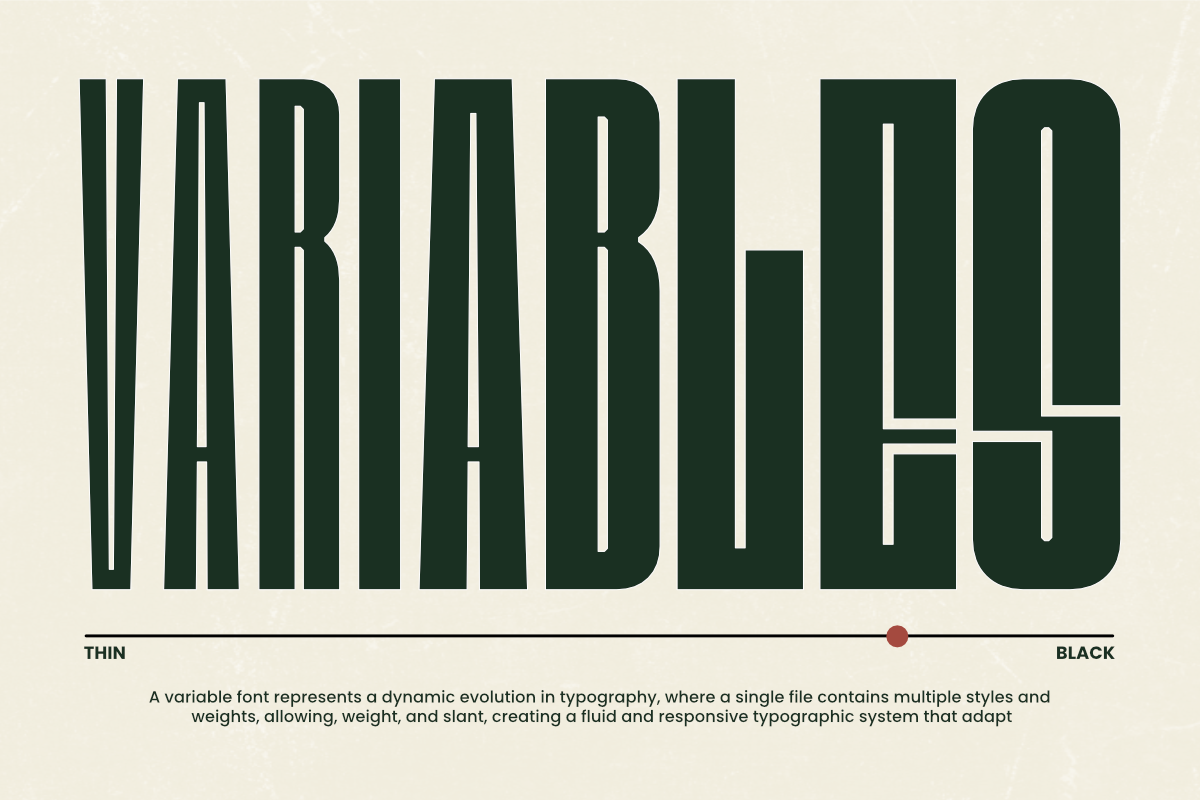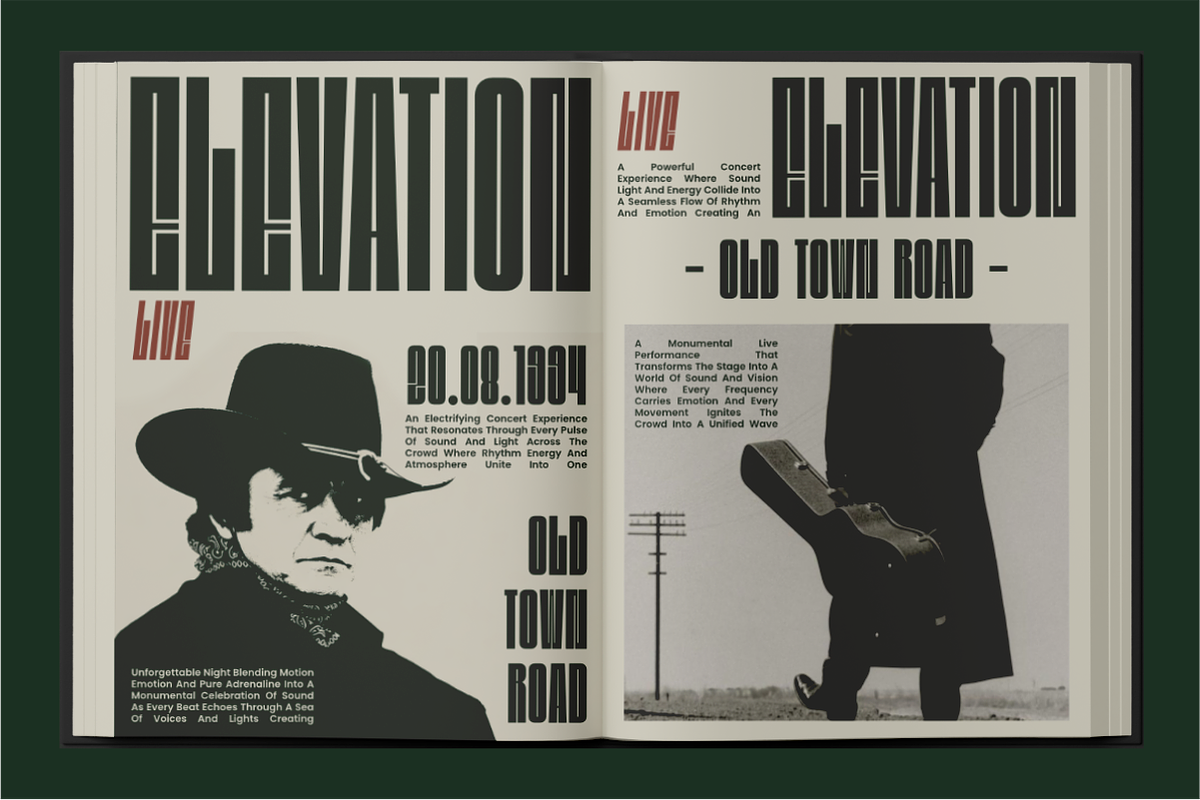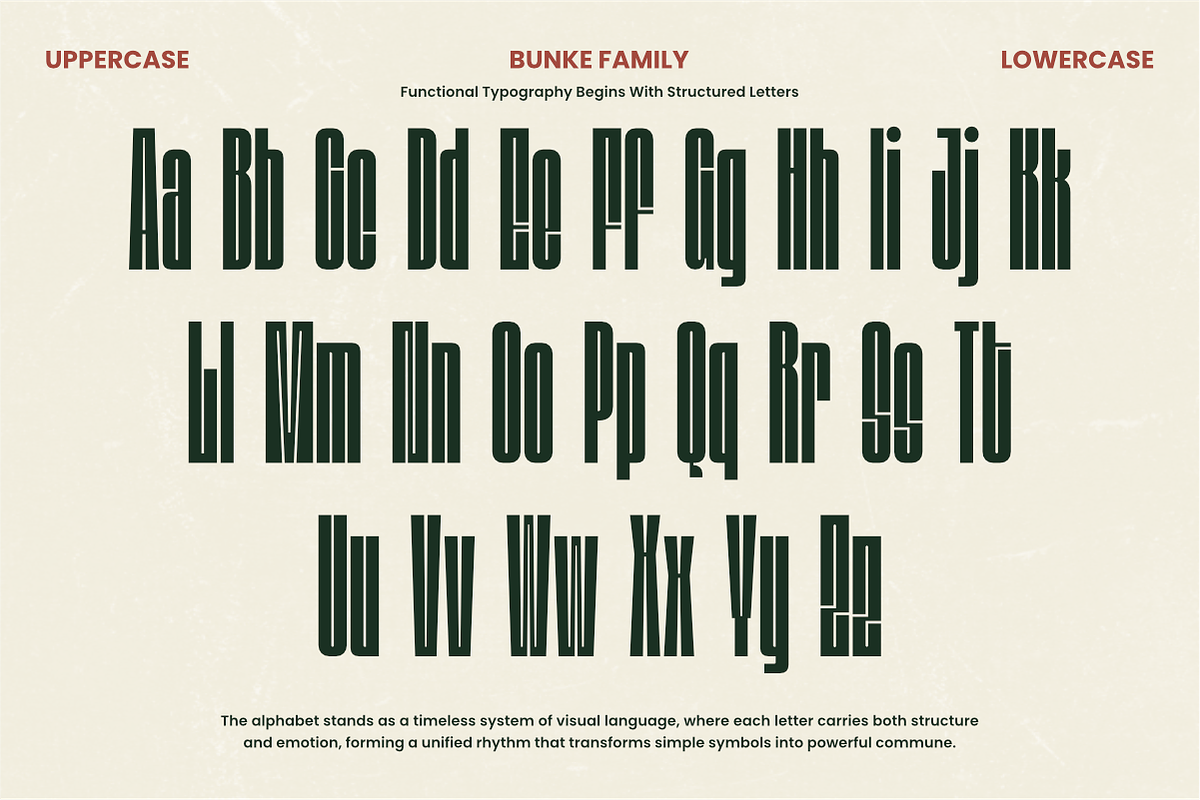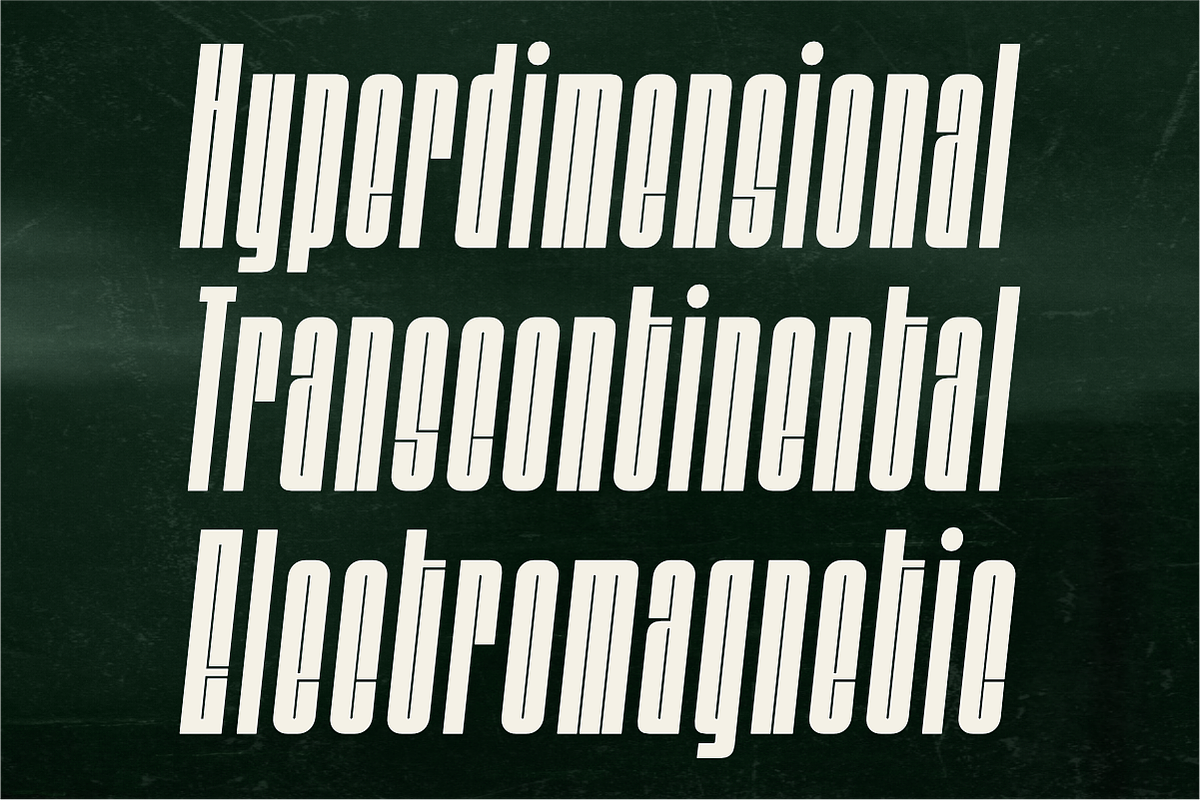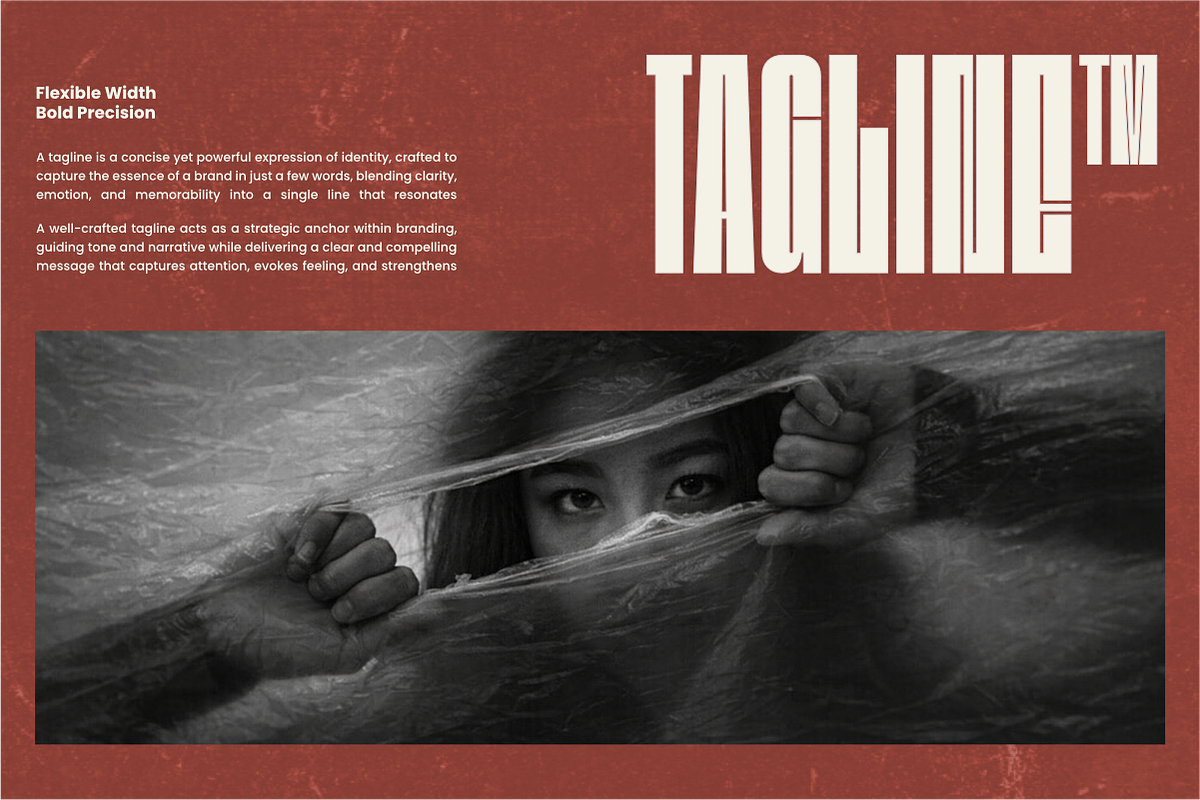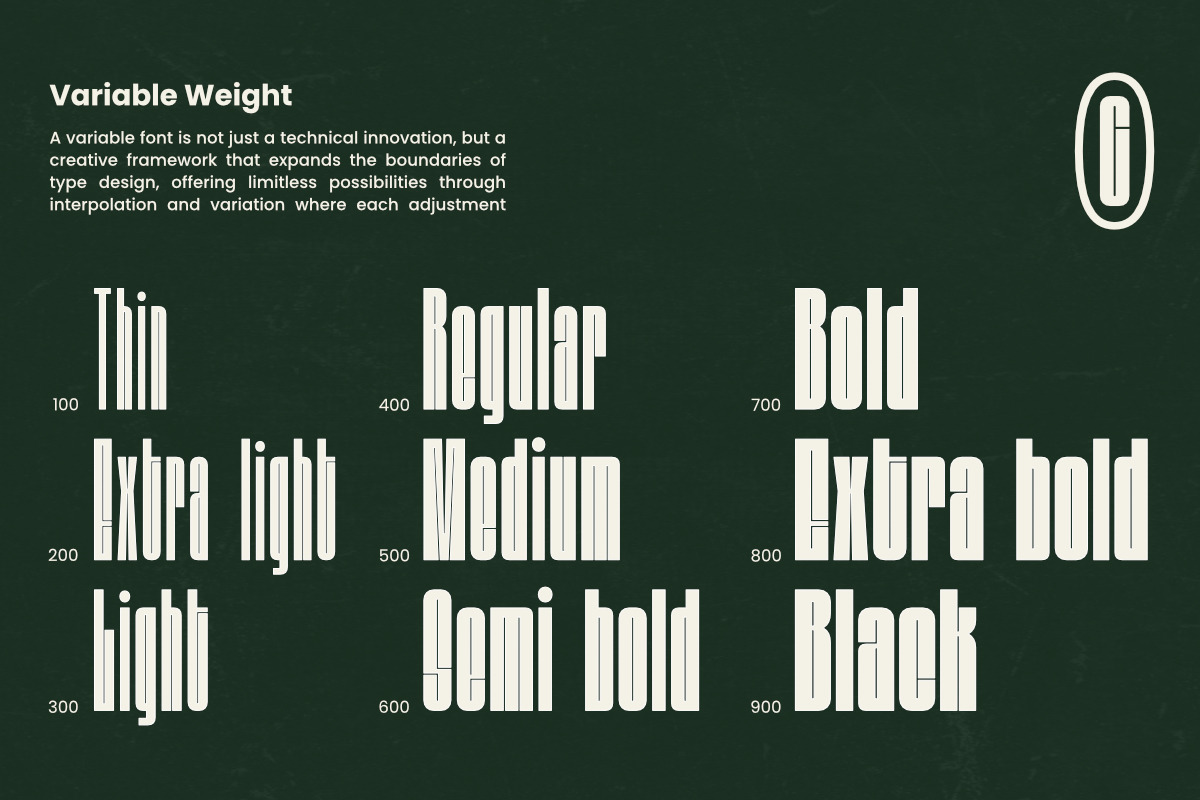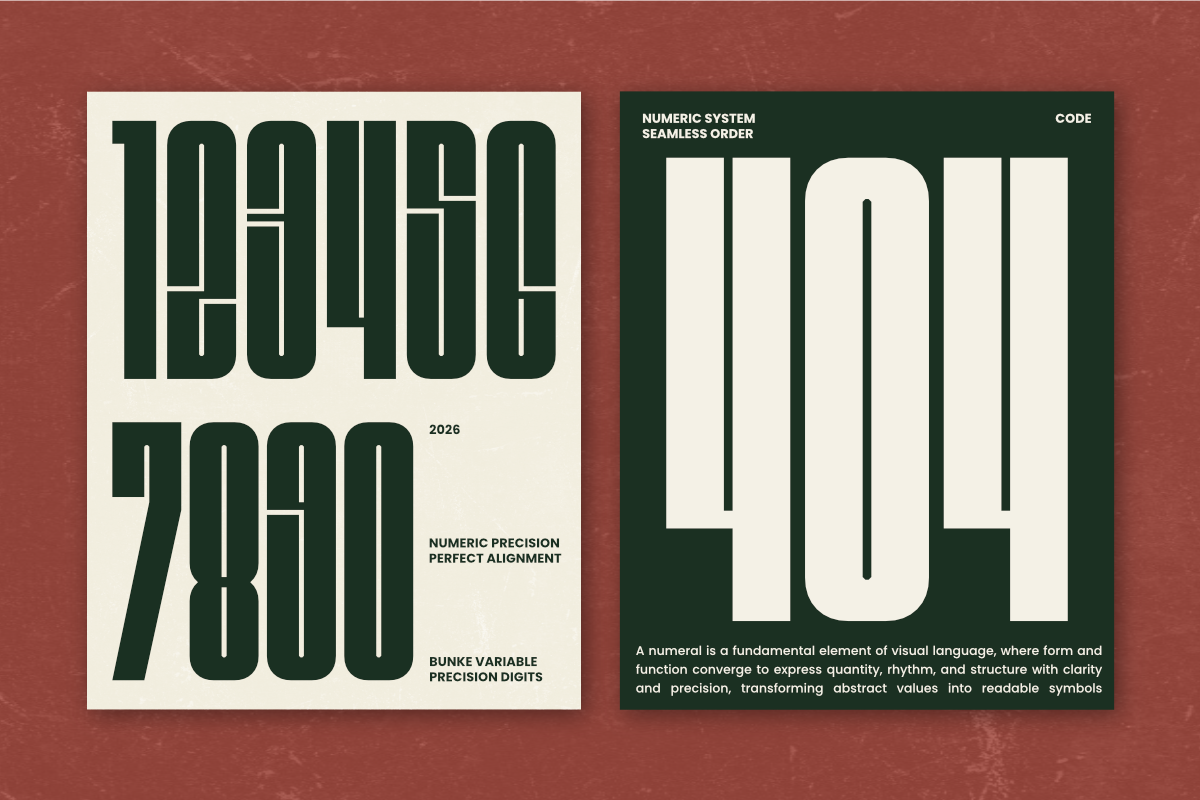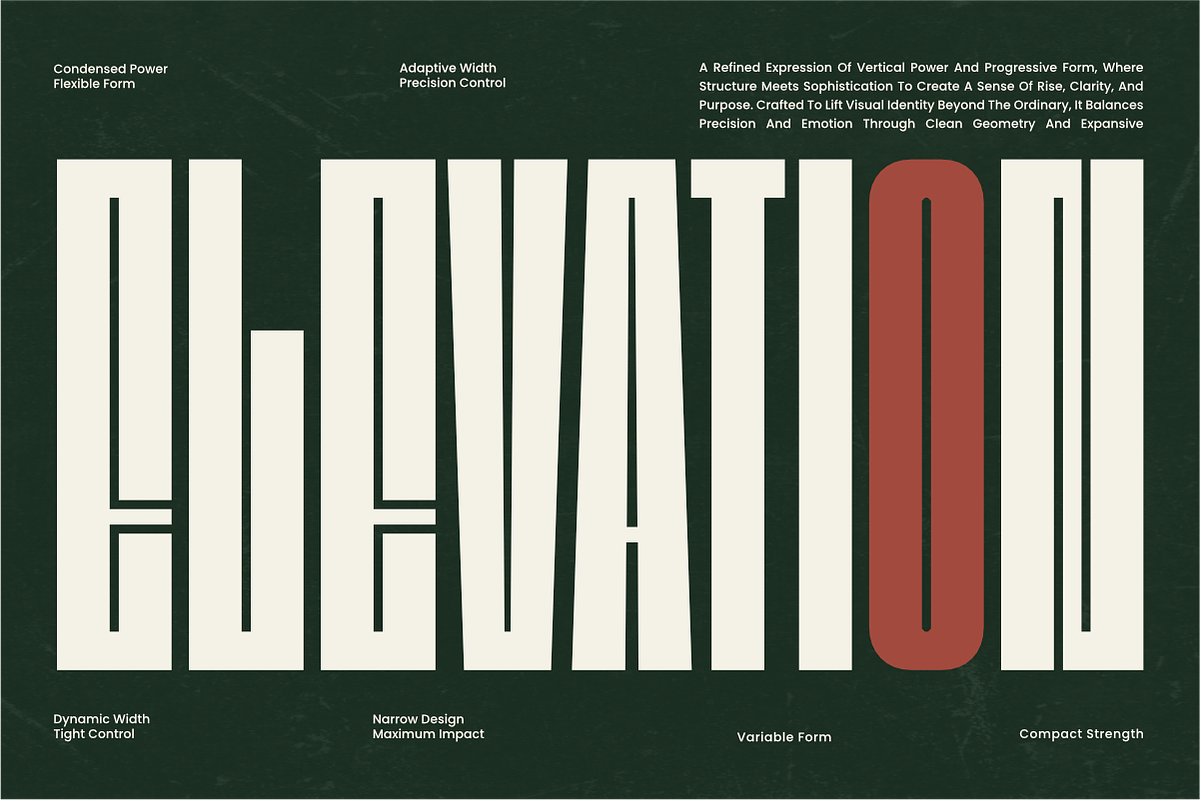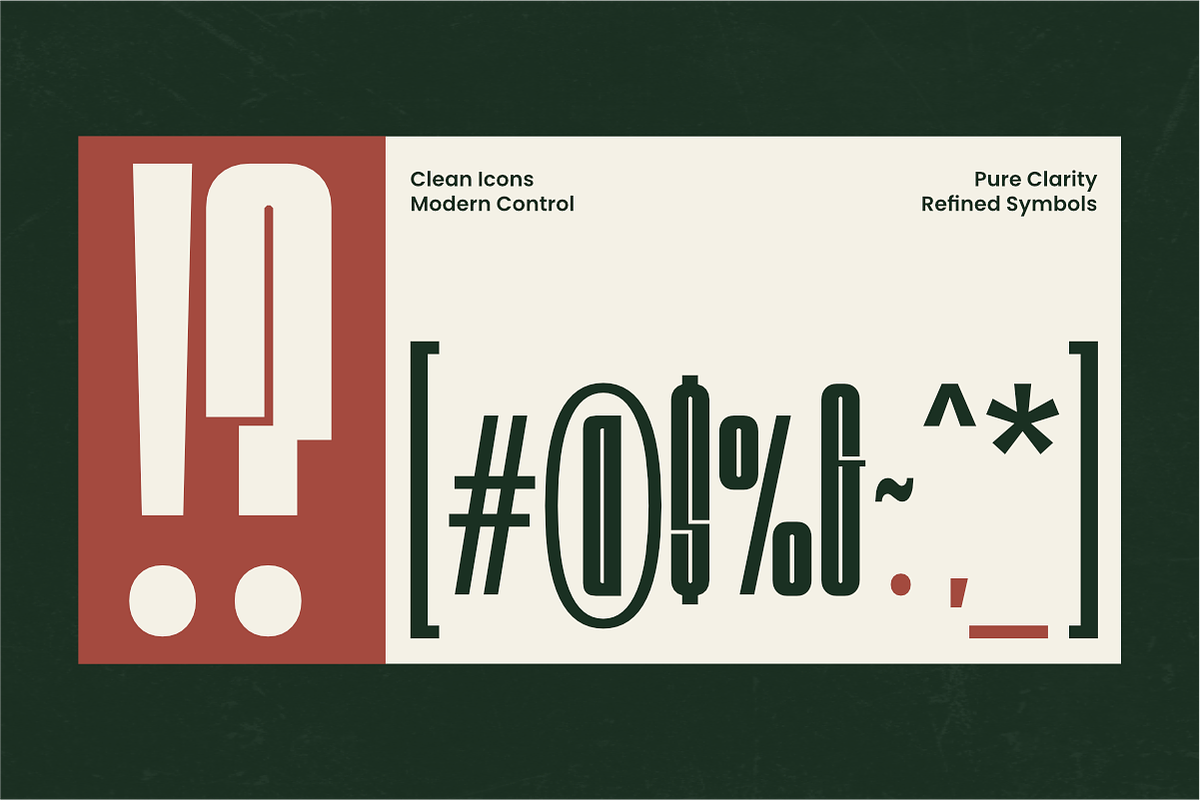
Bunke - Vintage Condensed Bold Sans
Bunke is a powerful and commanding condensed bold sans-serif typeface with a distinct vintage flair. It transforms spatial limitations into creative strength. Its tall, imposing structure and bold weight make it perfect for striking displays, while its vintage aesthetic adds a touch of raw, nostalgic character to modern designs.
\\- Impactful Posters & Flyers
\\- Vintage Branding & Logo Design
\\- Editorial Headlines & Magazine Covers
\\- Bold Packaging Design
\\- Apparel & Streetwear Typography